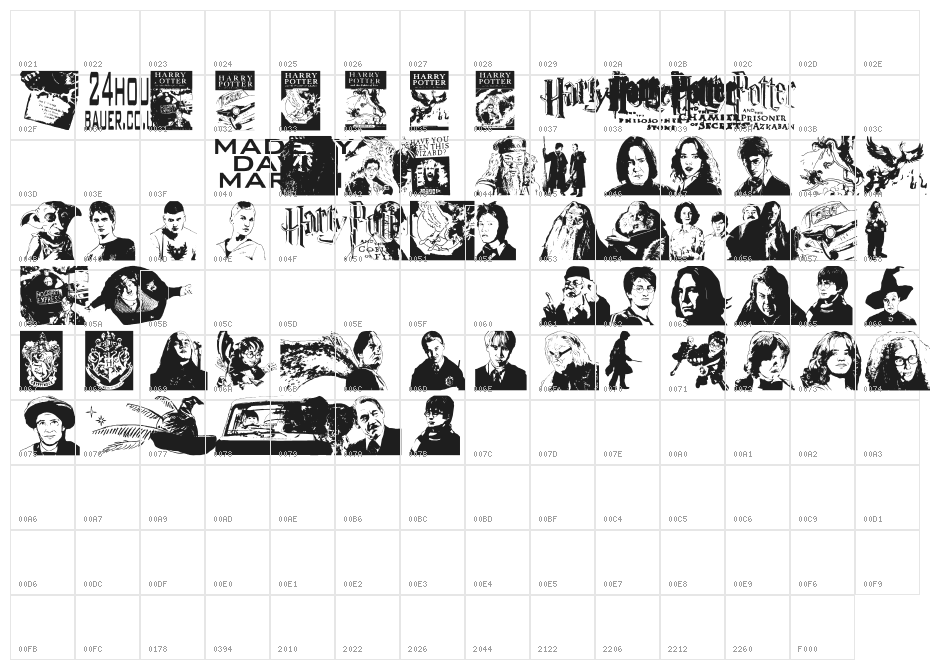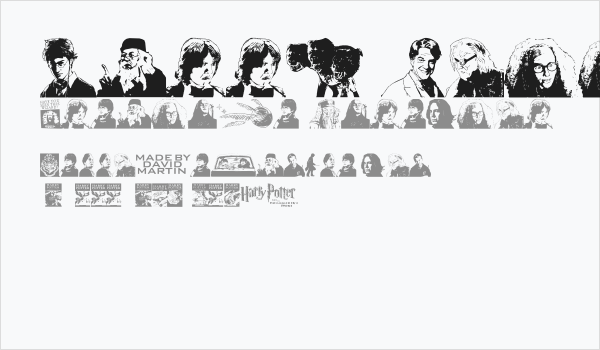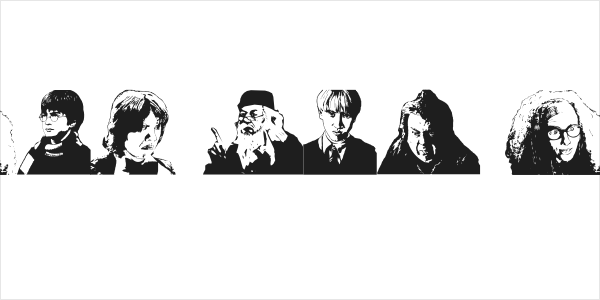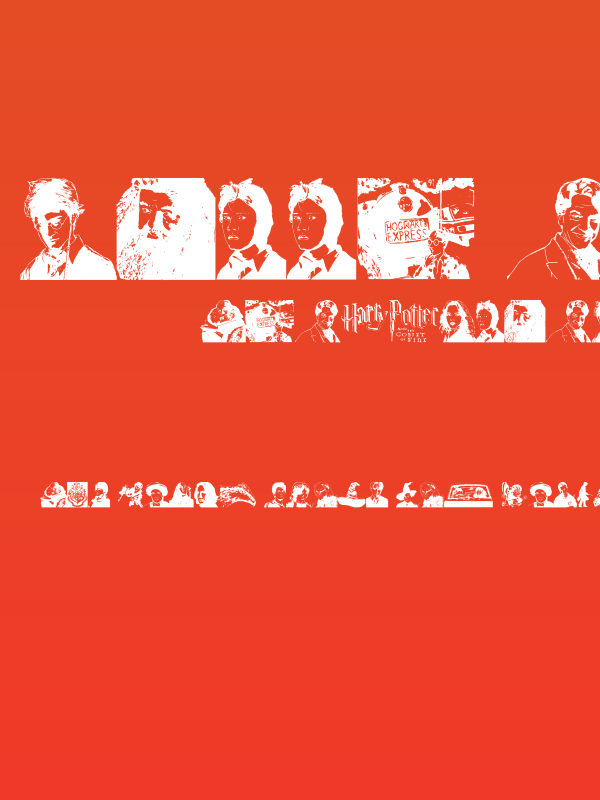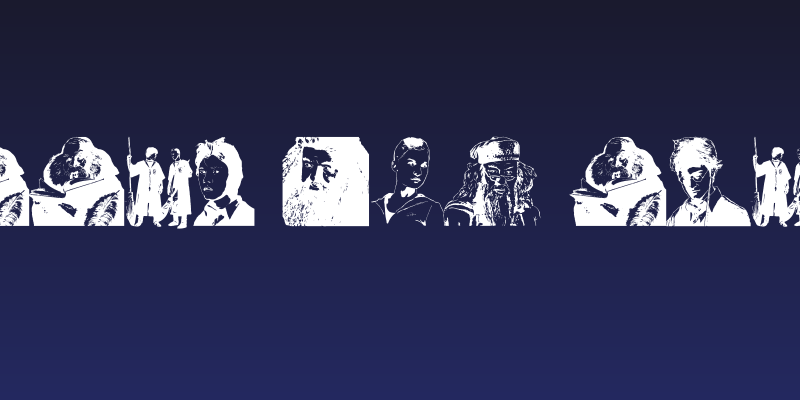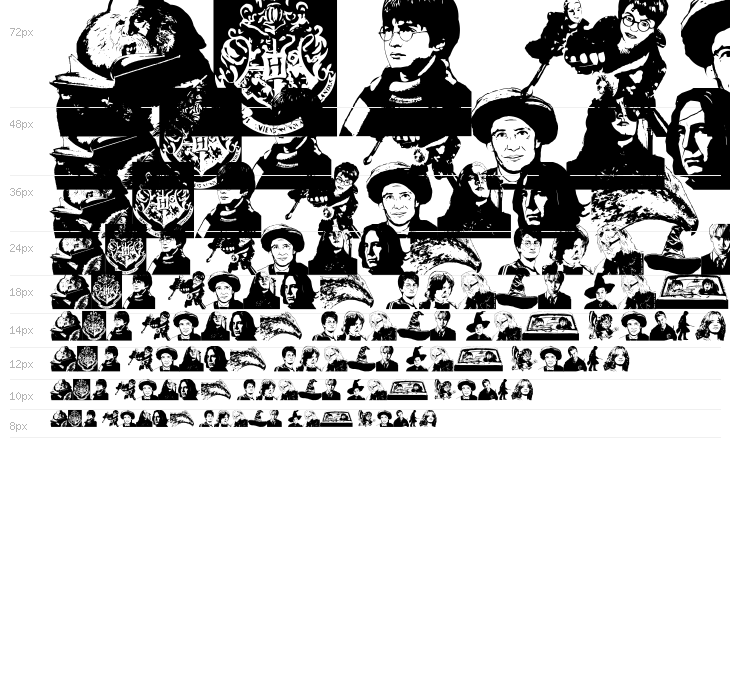
Harry Potter and the Dingbats Font
A highly decorative display font composed of detailed black-and-white illustrations and logos inspired by a popular fantasy series, featuring characters, magical creatures, objects, and book covers. The glyphs are pictorial rather than traditional letterforms, making each character a unique visual element.
Overall StyleDecorative, Thematic, Fantasy
Use CaseDecorative elements, Themed graphics, Posters, Crafts
Proposed ProjectsThemed party invitations, fan art, event posters, scrapbooking, novelty merchandise, and decorative headings.